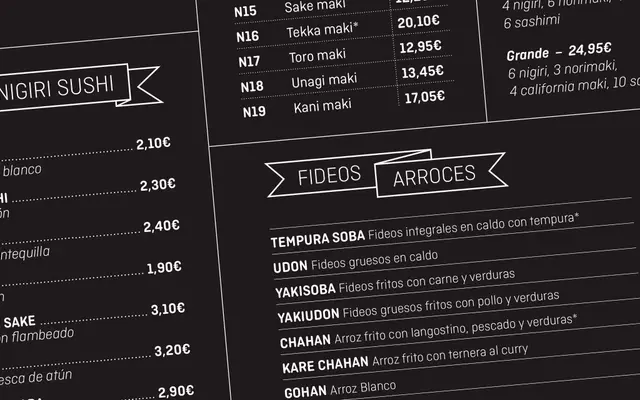
Ciutadella Rounded
A geometric sans with true rounded terminals engineered to maintain that rounding consistently across all five weights, including the heaviest.
Rather than simply clipping corners, Ciutadella Rounded uses genuine rounded terminals throughout, a technical challenge the foundry note is particularly acute in heavy weights where tight counters leave little room for the round endings. Ten styles span Light to Bold with matching italics. The family suits identity systems, editorial work and anywhere a softer, more approachable tone is needed without sacrificing geometric structure.
Ciutadella Rounded is a geometric sans-serif distinguished by true rounded terminals across all weights rather than merely clipped corners, placing it firmly in the rounded geometric sans category.